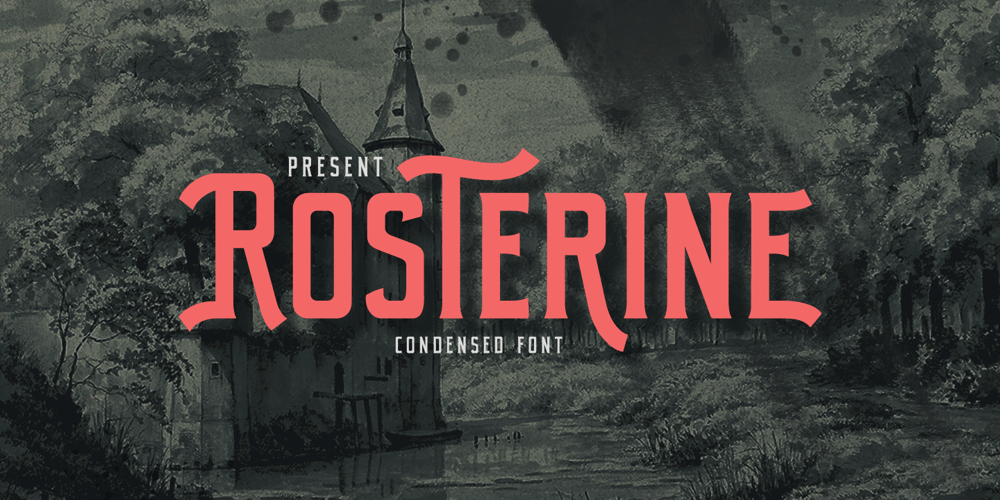
Rosterine Font Family was designed by Hendry Juanda and published by Letterhend. Rosterine contains 1 styles and family package options. Rosterine is a condensed display typeface with the touch of nostalgic and vintage feel . This typeface has unique looks and strong characters. This font perfectly made to be applied especially in logo, and the other various formal forms such as invitations, labels, magazines, books, greeting / wedding cards, packaging, fashion, make up, stationery, novels, labels or any type of advertising purpose.Features : Uppercase & lowercase (alternates) Numbers and punctuation Stylistic alternates multilingual PUA encoded We highly recommend using a program that supports OpenType features and Glyphs panels like many of Adobe apps and Corel Draw, so you can see and access all Glyph variations.